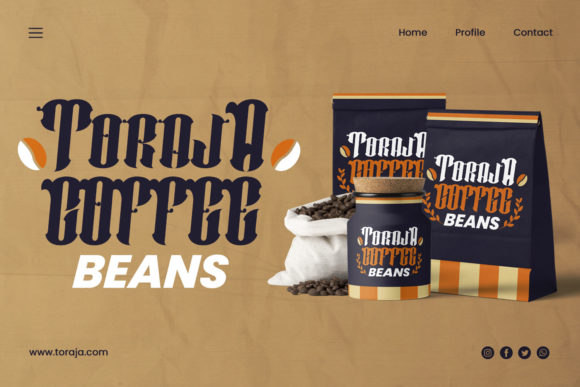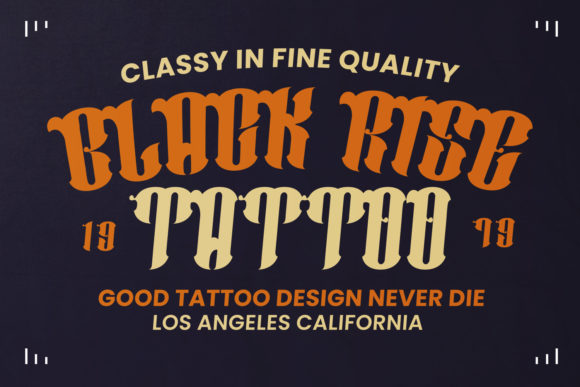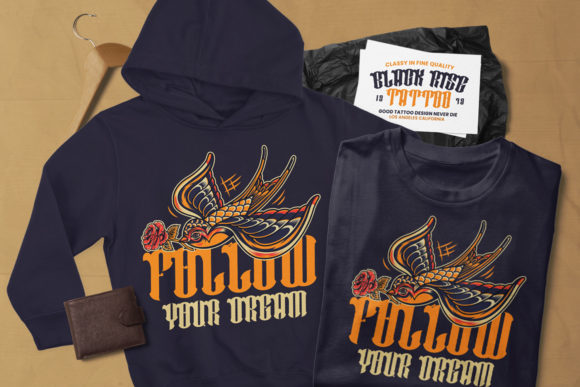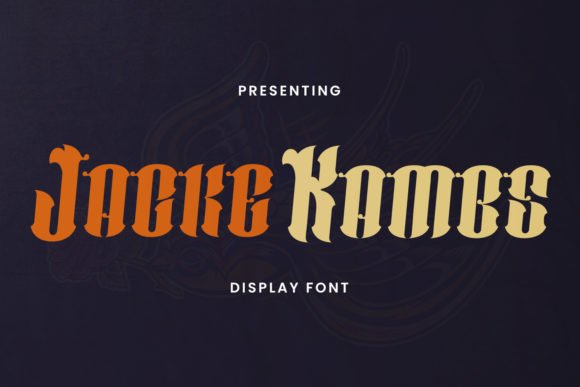
Introduction to Jacke Kambs Font
Jacke Kambs is a gothic and blackletter font.
It is imposing and features uniquely shaped letters, and as a result, it will easily match a wide range of creations that require a distinct touch .